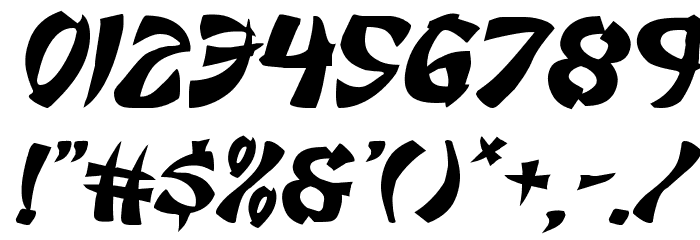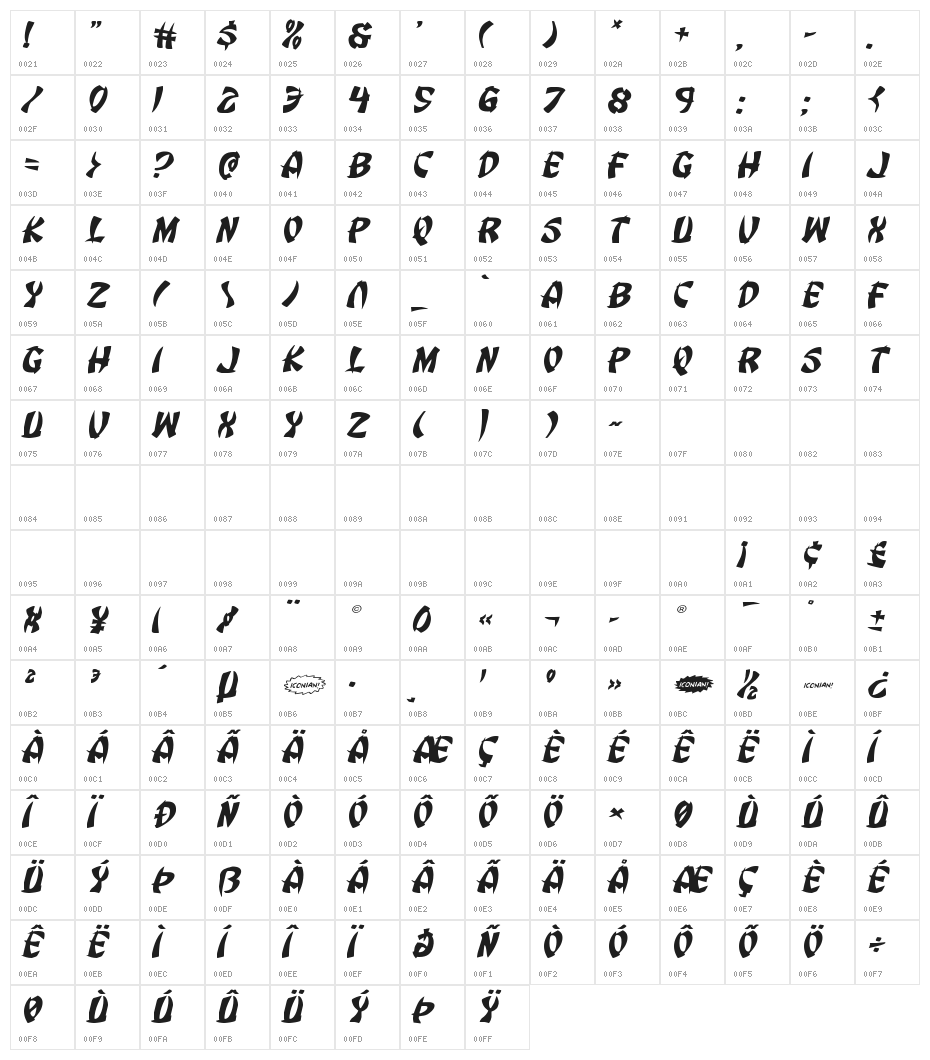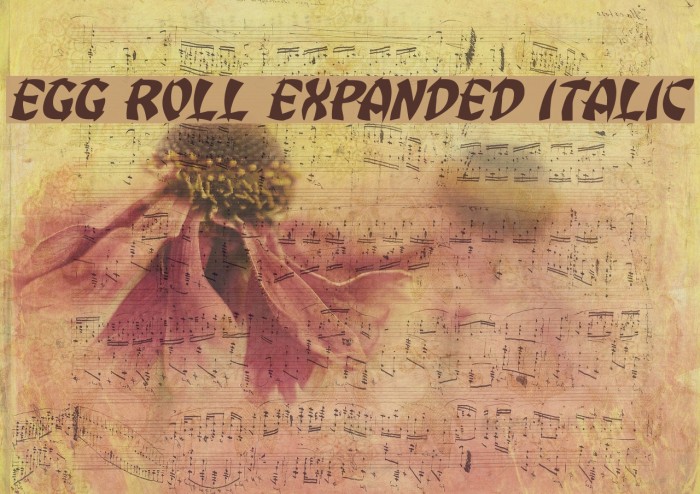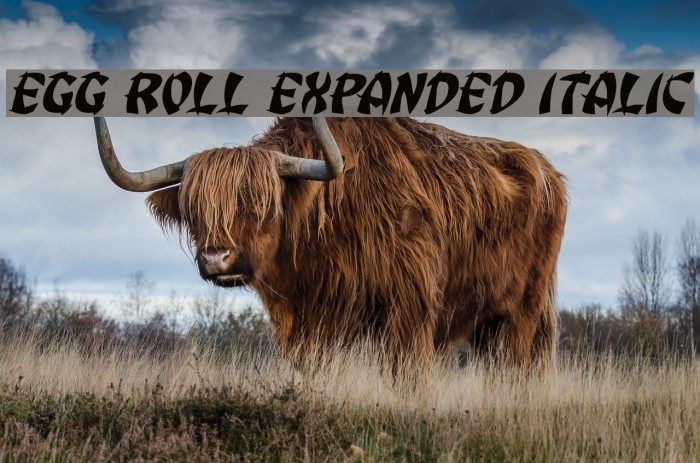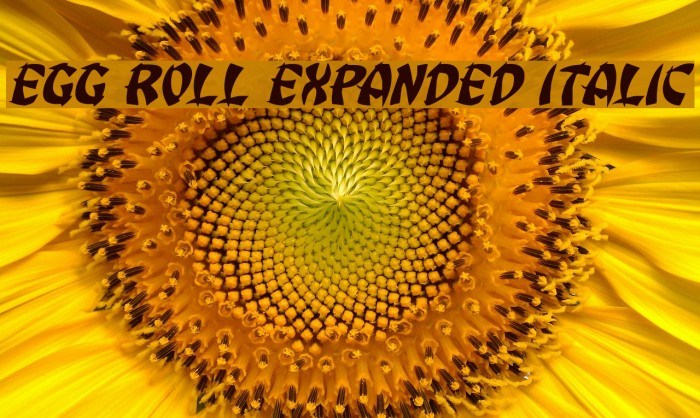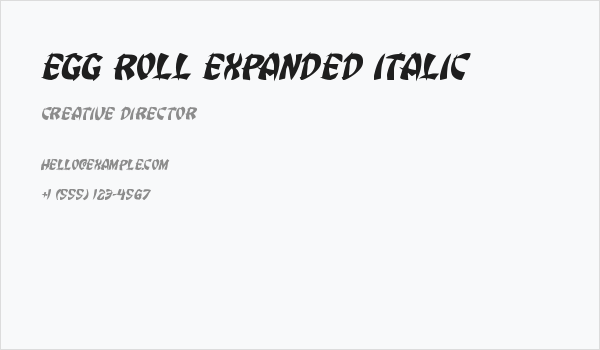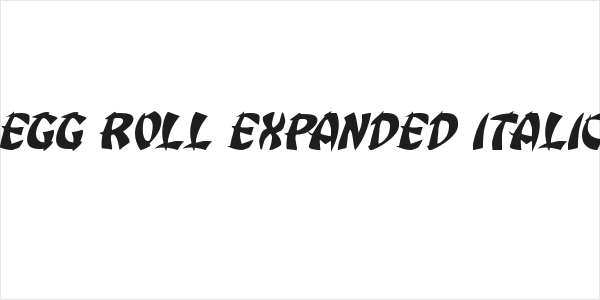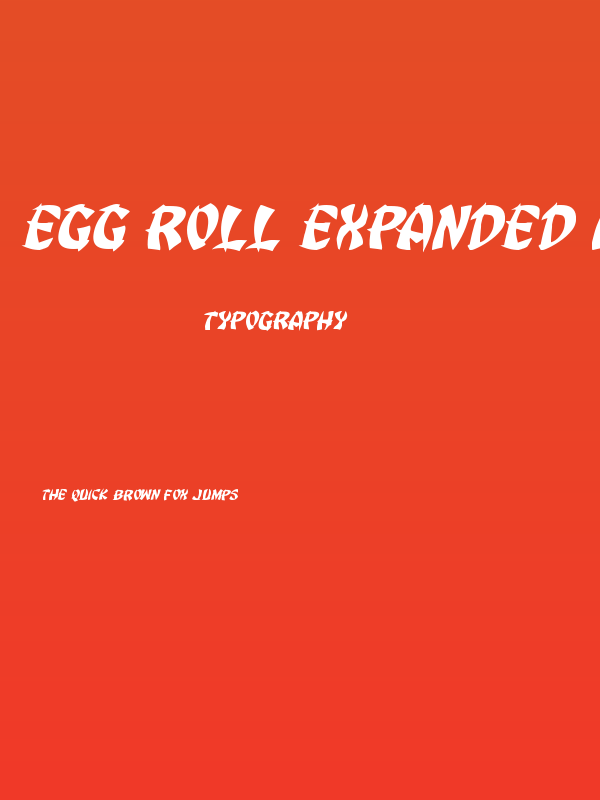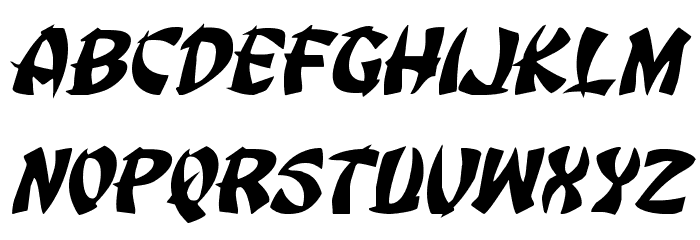
Egg Roll Expanded Italic Font
Egg Roll Expanded Italic Description
This font features a bold and dynamic style with an italic slant, giving it a sense of movement and energy. The characters are expanded, providing a wide and impactful appearance. Each letter is crafted with sharp, angular edges and a slightly aggressive flair, making it stand out prominently. The strokes are thick and consistent, contributing to a high contrast between the character body and the negative space. This font is designed to capture attention and convey a strong, assertive message.